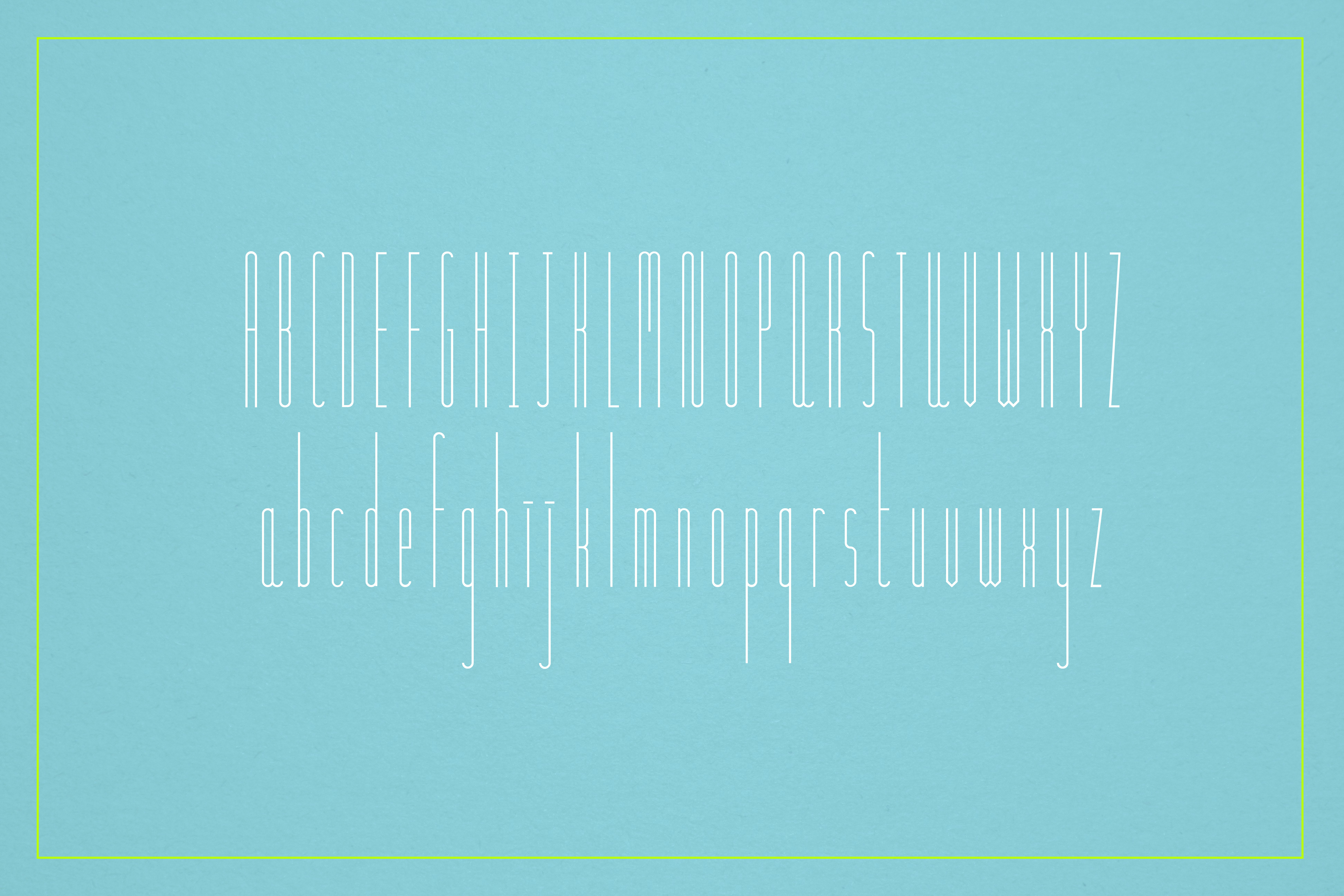
Introduction to Slendergrey Font
As a designer, have you ever found yourself staring at a blank canvas, searching for the perfect font to bring your creative project to life? You’ve spent hours scrolling through design resources, trying to find that elusive combination of style and sophistication that sets your work apart. If you’re on the hunt for a font that exudes luxury and elegance, look no further than the Slendergrey Font.
This high-quality font is a game-changer for designers, offering a sleek and slender style that’s perfect for modern, clean designs. Whether you’re working on a magazine title, a corporate project, or anything in between, the Slendergrey Font is sure to make your work stand out. And the best part? You can download it for free, making it an invaluable resource for designers of all levels.
With its transparent background and versatile design, the Slendergrey Font is a must-have for any creative project. In this article, we’ll dive deeper into the world of this stunning font, exploring its features and benefits, and showing you how to get the most out of it.
Key Features of Slendergrey Font
- High-quality design resource suitable for various creative projects, including logos, headings, and body text.
- Comes with a transparent background, making it easy to overlay on images or videos.
- Includes 6 styles, ranging from light to bold, to cater to different design needs and preferences.
- Features a clean and modern sans-serif design, making it perfect for contemporary branding and advertising projects.
- Supports a wide range of languages, including Latin, Cyrillic, and Greek alphabets, making it a versatile design resource.
- Has a large x-height and open counters, allowing for easy readability and clear typography in various sizes and resolutions.
Honest Review: Slendergrey Font
As a designer, I’m always on the lookout for high-quality design resources that can elevate my creative projects. The Slendergrey Font has been a game-changer for me, and I’m excited to share my honest review with you.
What works well: ✨ The Slendergrey Font is incredibly versatile and can be used for a wide range of design projects, from logos to typography-heavy designs. The font’s sleek and modern design makes it perfect for creating a professional and sophisticated look. I’ve also appreciated the transparency of the font’s background, which allows for seamless integration with other design elements.
What I wish was different: ⚠️ While the Slendergrey Font is free to download, I’ve noticed that it’s not as widely supported as some other fonts. This can be a limitation if you’re working on a project that requires a specific font or formatting. Additionally, the font’s thin lines can sometimes be difficult to read, especially at smaller sizes.
Overall, I’m thoroughly impressed with the Slendergrey Font. Its high quality, versatility, and sleek design make it a valuable addition to any designer’s toolkit. If you’re looking for a free design resource that can help take your creative projects to the next level, I highly recommend giving the Slendergrey Font a try.
- Perfect for logos, typography-heavy designs, and creative projects
How to Use Slendergrey Font
The Slendergrey Font is a high-quality design resource ideal for creative projects. Its clean and modern design makes it perfect for various applications, from digital to print media.
Getting the Most Out of Slendergrey Font
To get the most out of the Slendergrey Font, use it in conjunction with other design elements, such as images and colors. Experiment with different font sizes and styles to achieve the desired effect.
The Slendergrey Font is ideal for various creative projects, including:
- Logos and branding
- Graphics and illustrations
- Presentations and documents
- Marketing materials and social media graphics